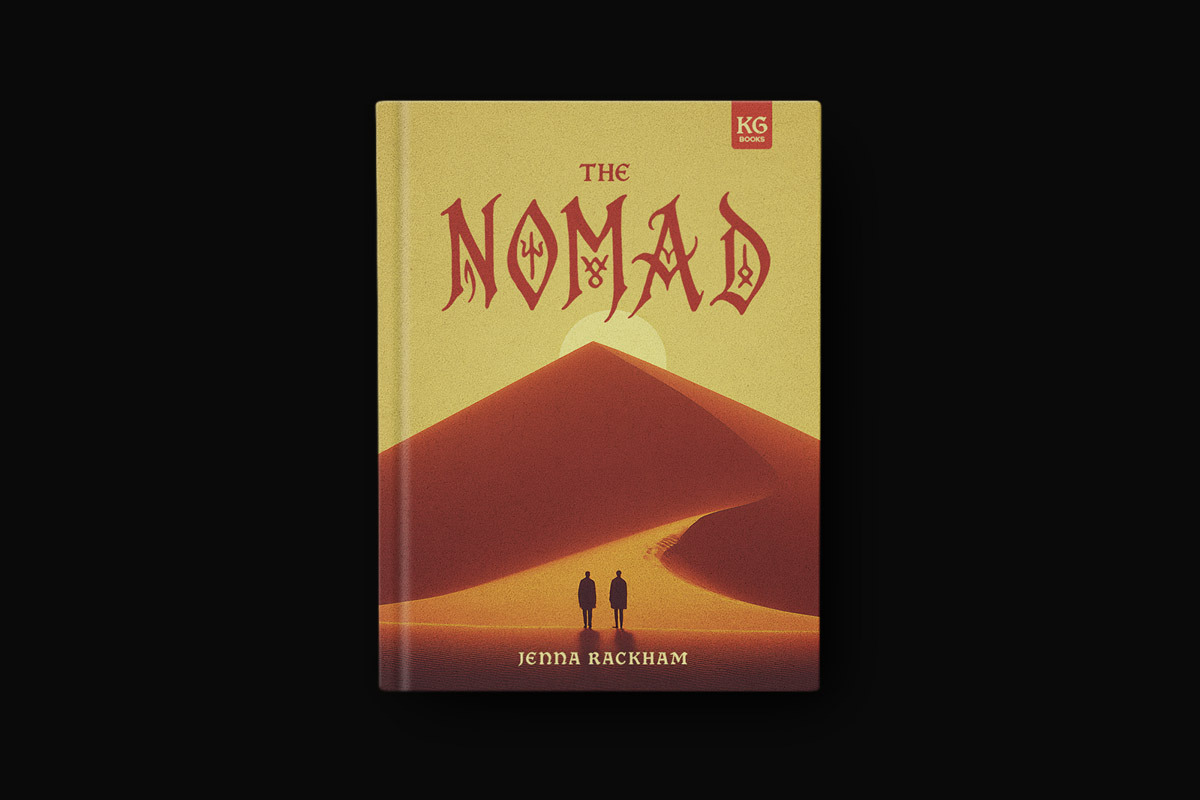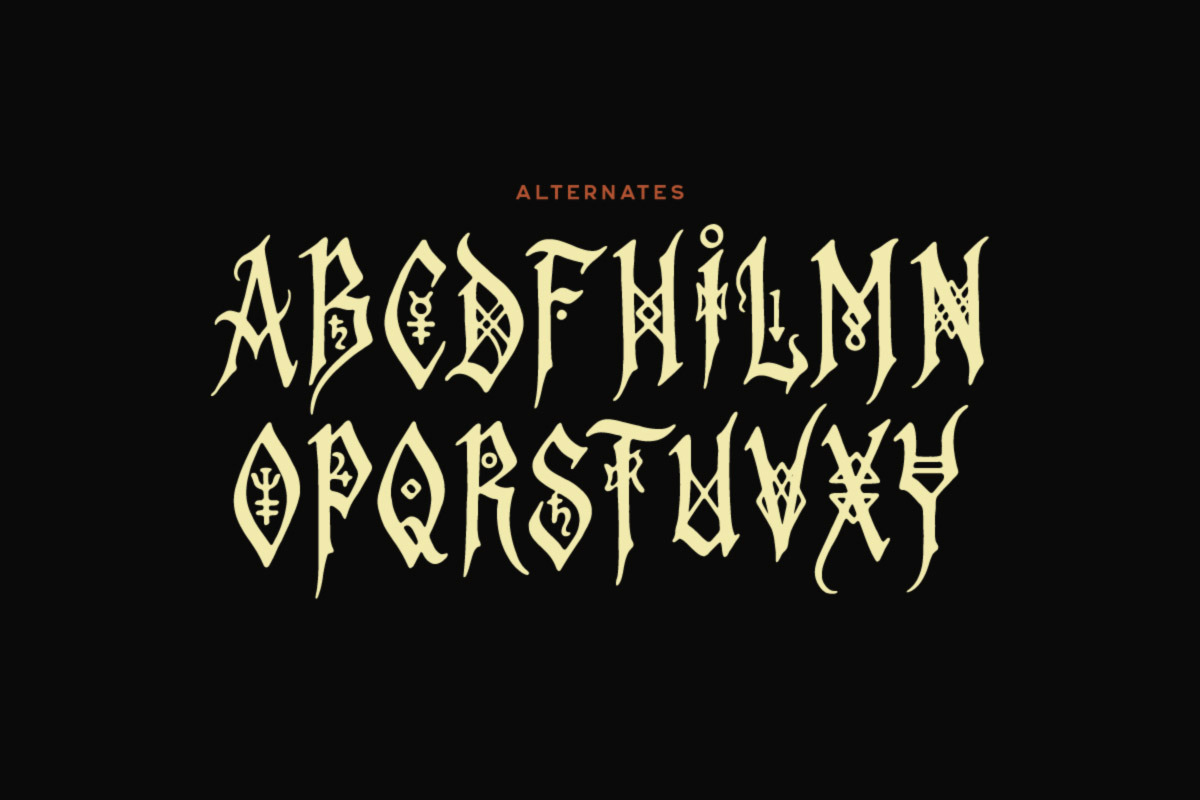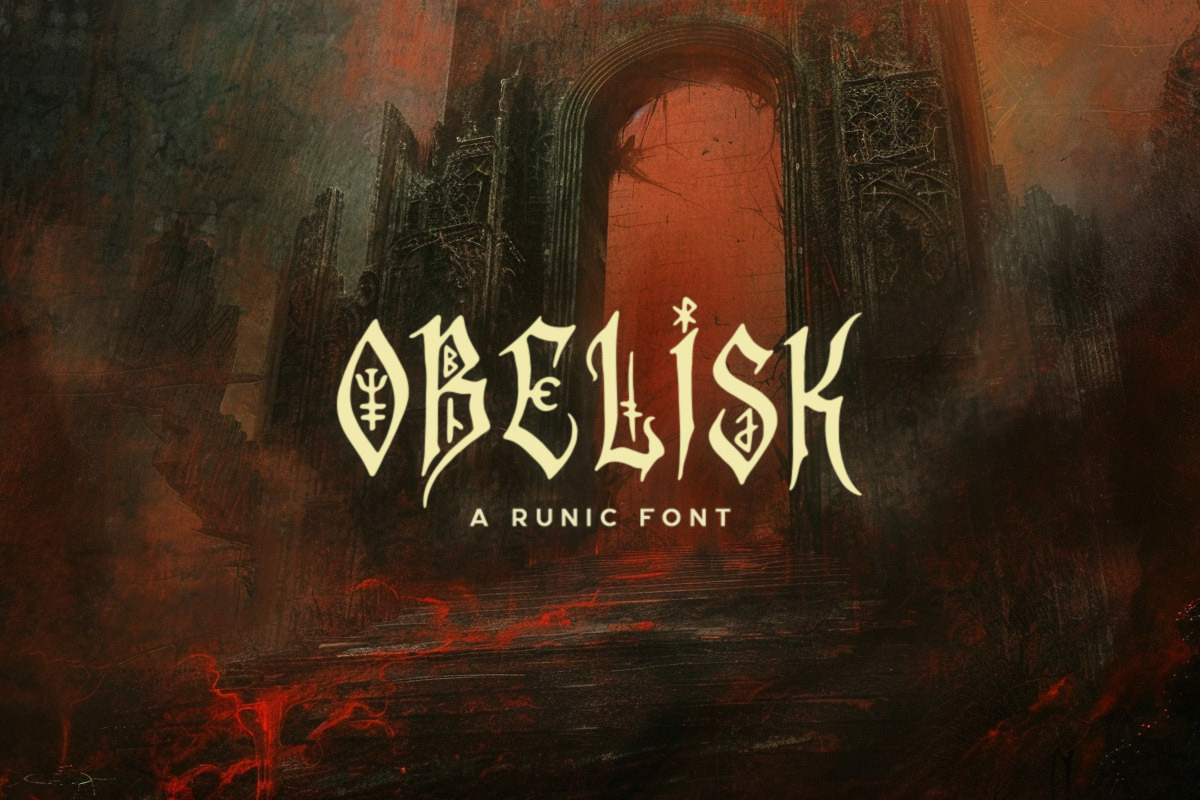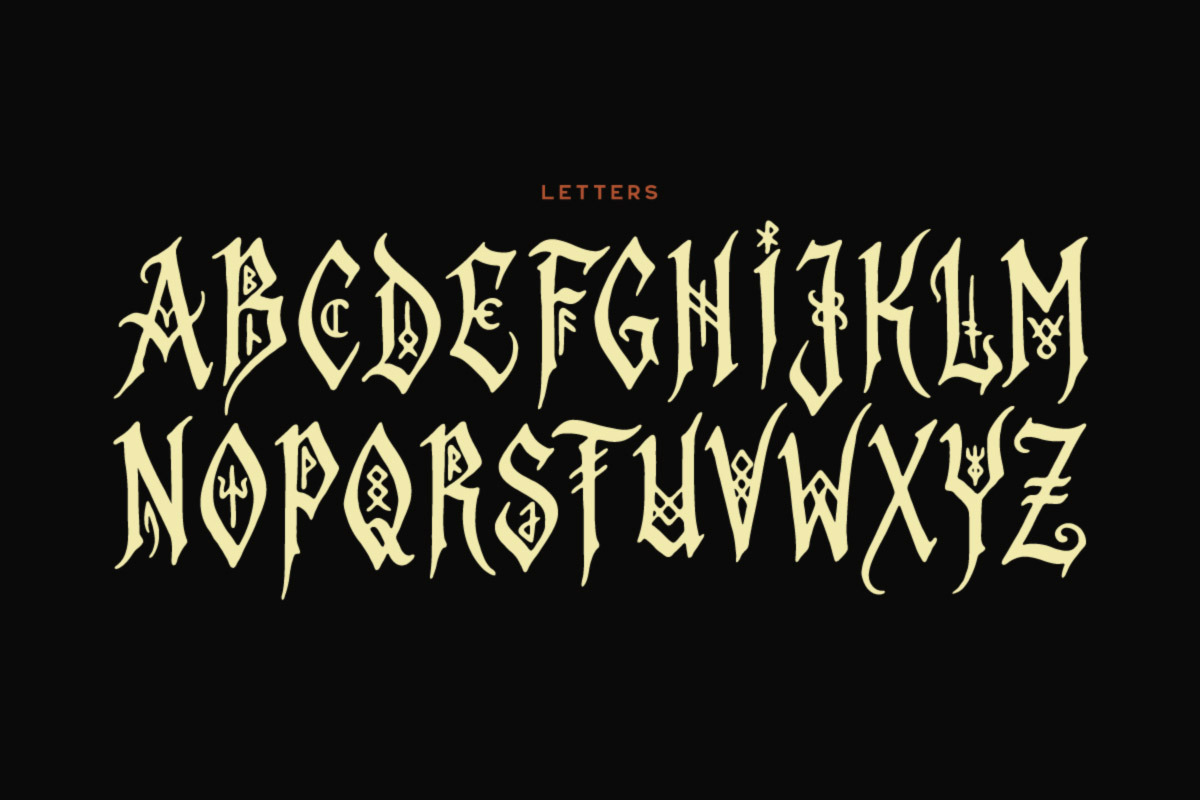
Obelisk - Runic Font
Obelisk is a bold runic display font inspired by ancient symbols and dark fantasy aesthetics. Featuring sharp, ritual-like letterforms and alternate characters, it’s ideal for fantasy book covers, game titles, posters, logos, and mystical branding.